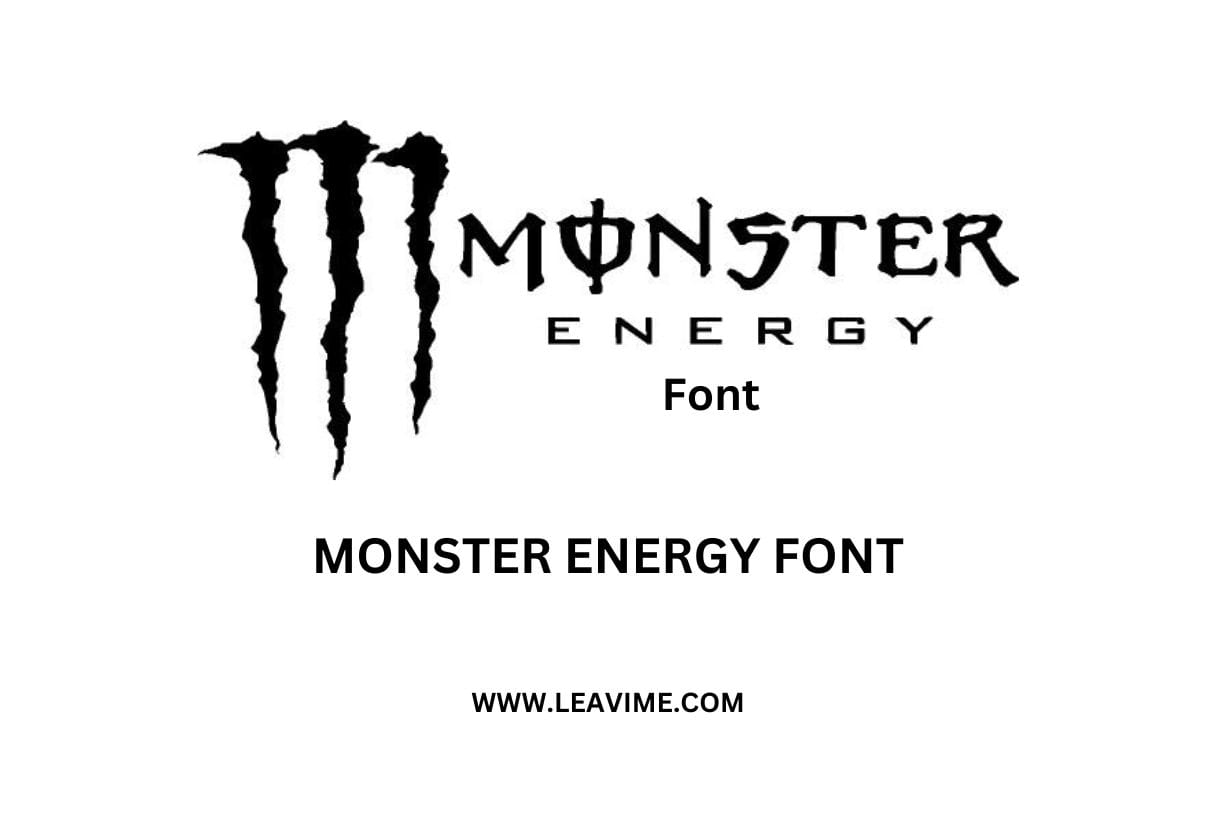
Monster Energy Font is a bold and distinctive typeface designed by Max Infeld and manufactured by Xerographer. Originally created for the famous energy drink brand, this logo font has become popular among designers and marketers looking for a high-impact style. The Monster Energy Font type is available in both TrueType Font (TTF) and OpenType Font (OTF) formats, making it compatible with multiple platforms, including Windows, PC, and Mac. Whether you’re working on branding, advertising, or digital media, this Monster Drink Font adds a powerful and edgy touch to any project.
As a Monster Drink Font, it captures the intense and edgy vibe of the Monster Energy brand, making it a perfect choice for high-energy projects. Designers can easily use an online generator tool to convert their regular text into this Monster Energy Drink Font by simply copying and pasting the content. This feature allows for quick and easy customization without requiring complex design software.
This Font Monster Energy is a versatile choice for a wide range of creative projects. It includes uppercase and lowercase letters, symbols, punctuation marks, and special characters, giving users complete freedom to create unique designs. From banners, posters, and flyers to brochures and flex designs, this font enhances both print and digital media projects. It is especially useful for branding, product packaging, and advertisements that require a bold and dynamic touch.
Beyond traditional print and branding, the Monster Energy Font type is widely used in website and graphic design applications, such as Adobe Photoshop, CSS, and Canva. It is also an excellent choice for horror movie titles, video game graphics, and YouTube thumbnails, adding a strong and dramatic visual impact. Whether you’re designing a gaming logo or a high-energy promotional banner, this font will make your project stand out.